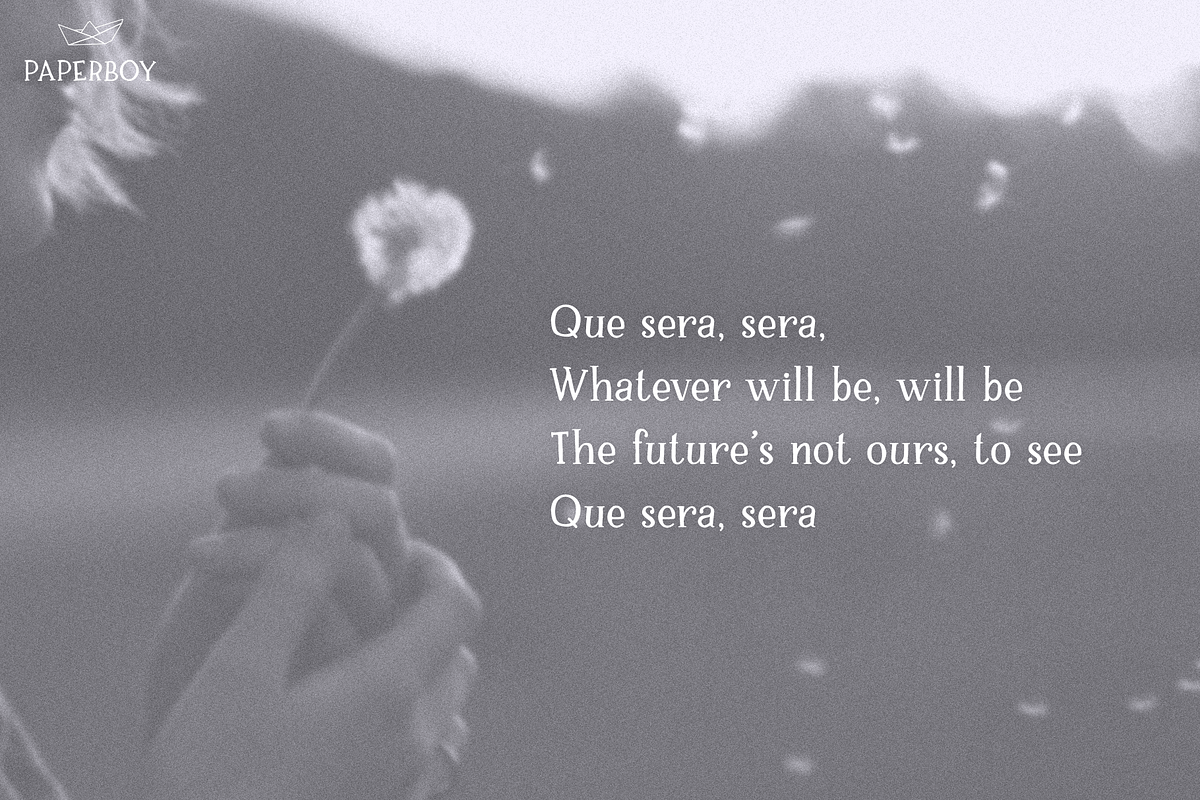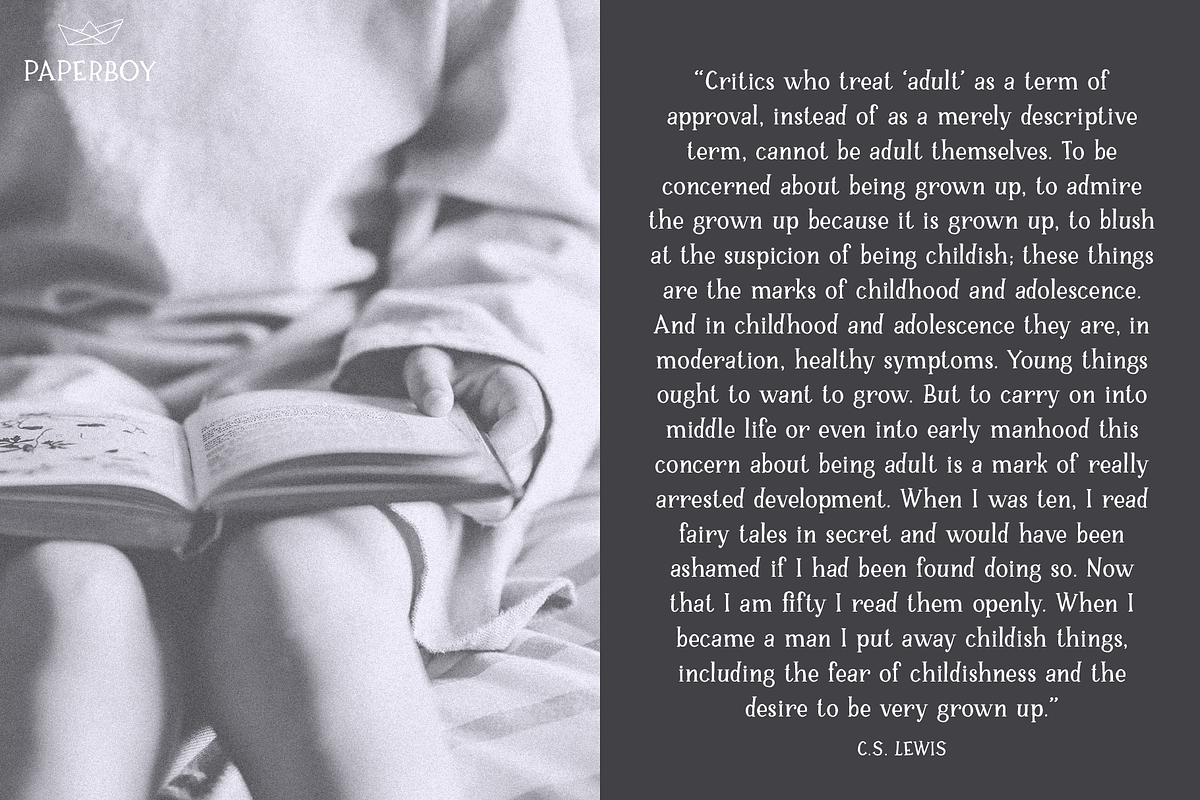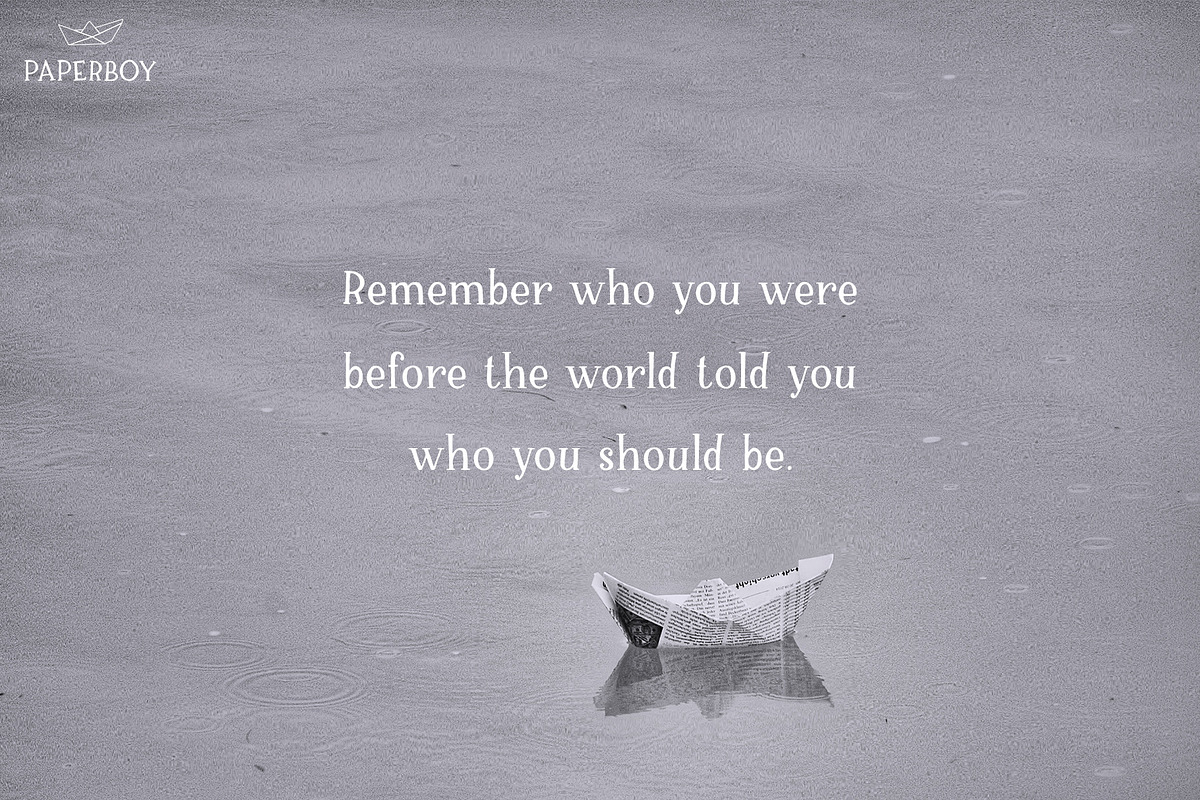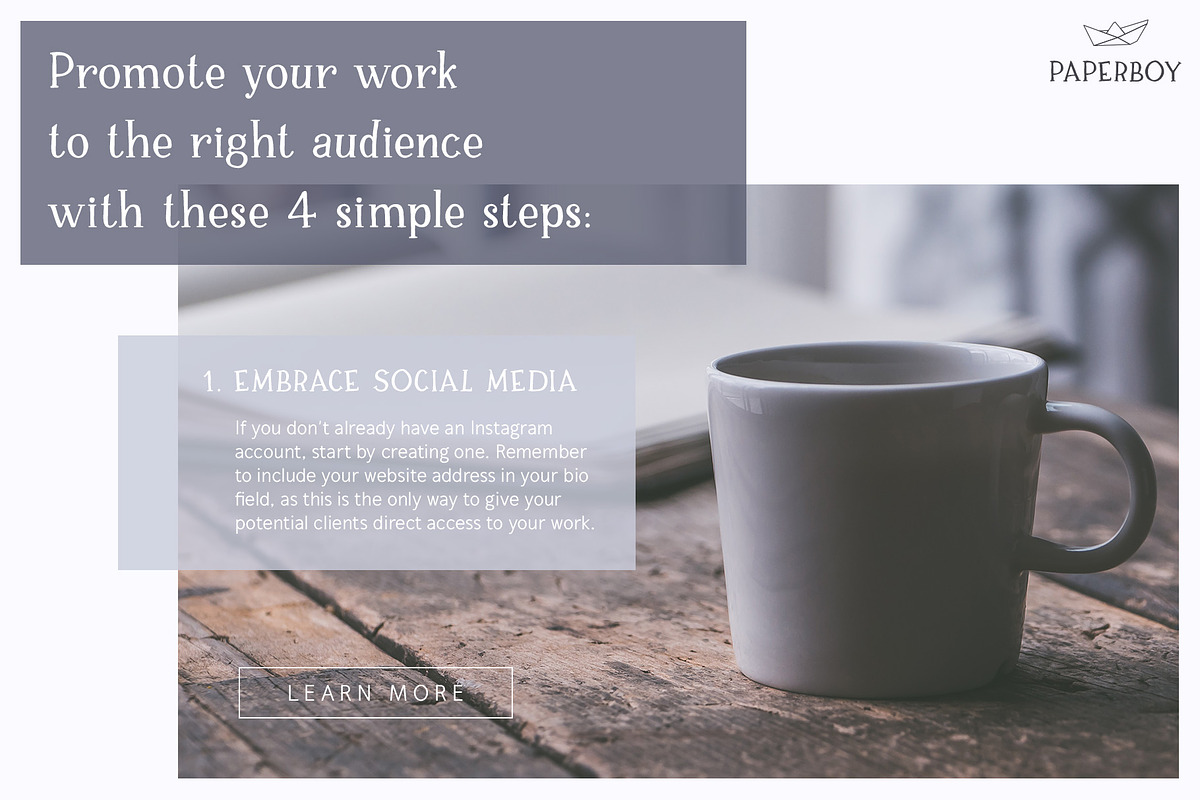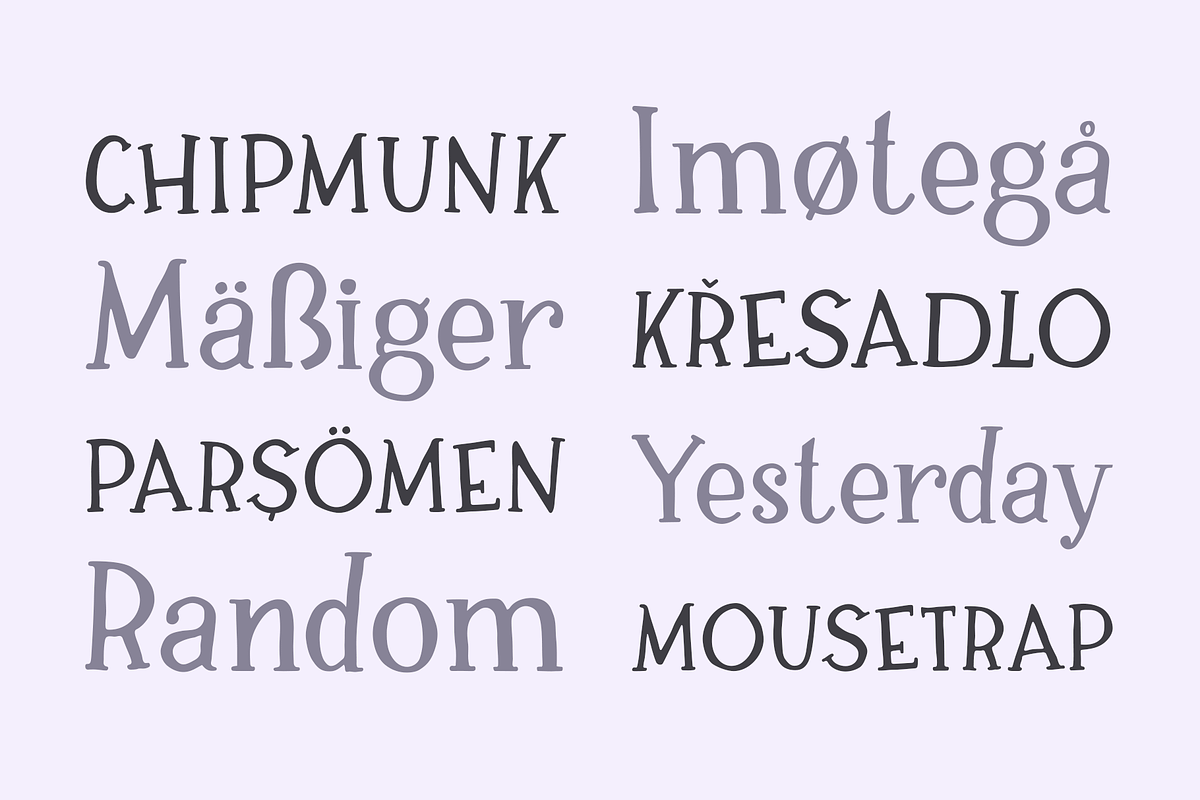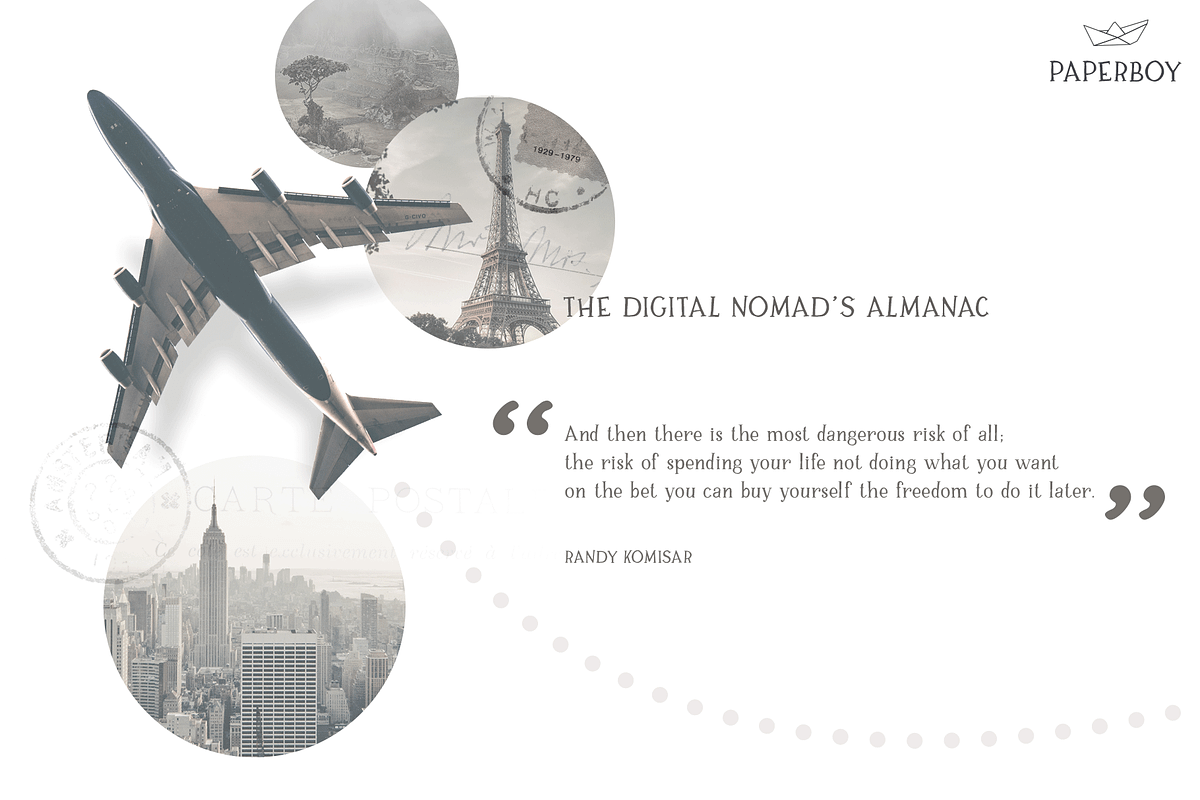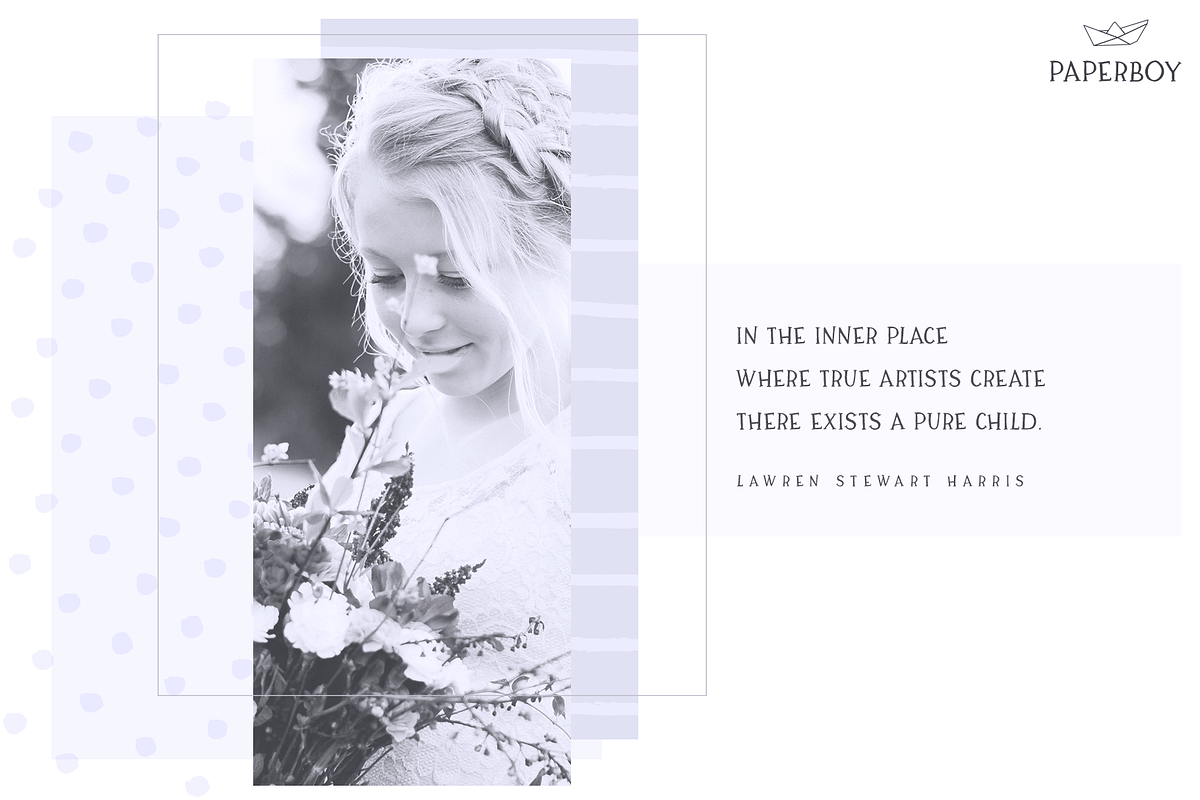
Paperboy | A Hand Drawn Serif Font
Paperboy now has more glyphs, better kerning and wider language support.
Paperboy is a hand drawn serif with a whimsical look. With its playful attitude, Paperboy takes out the seriousness that comes with serif fonts, even though it follows the same typographic principles.
Uppercase & lowercase letters
Numbers & punctuation